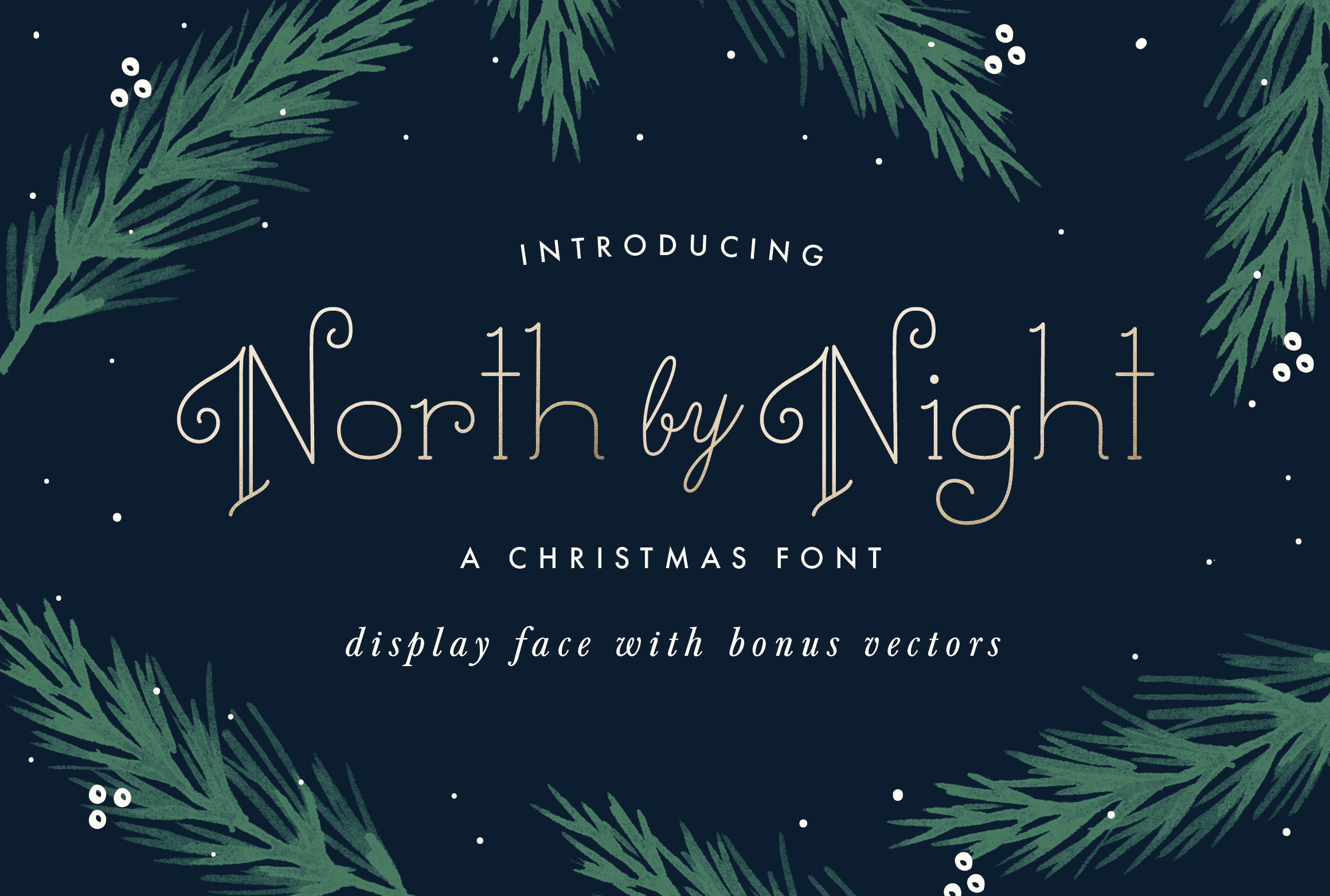
North by Night, A Christmas Font
Santa's favorite display font. Pairs perfectly with my holiday script Holiday Cookies, also available in my shop.
North By Night is suitable for Christmas cards, wedding invitations, branding, stationery, blog design, custom art, custom stamps, custom embossers, or any design purpose.